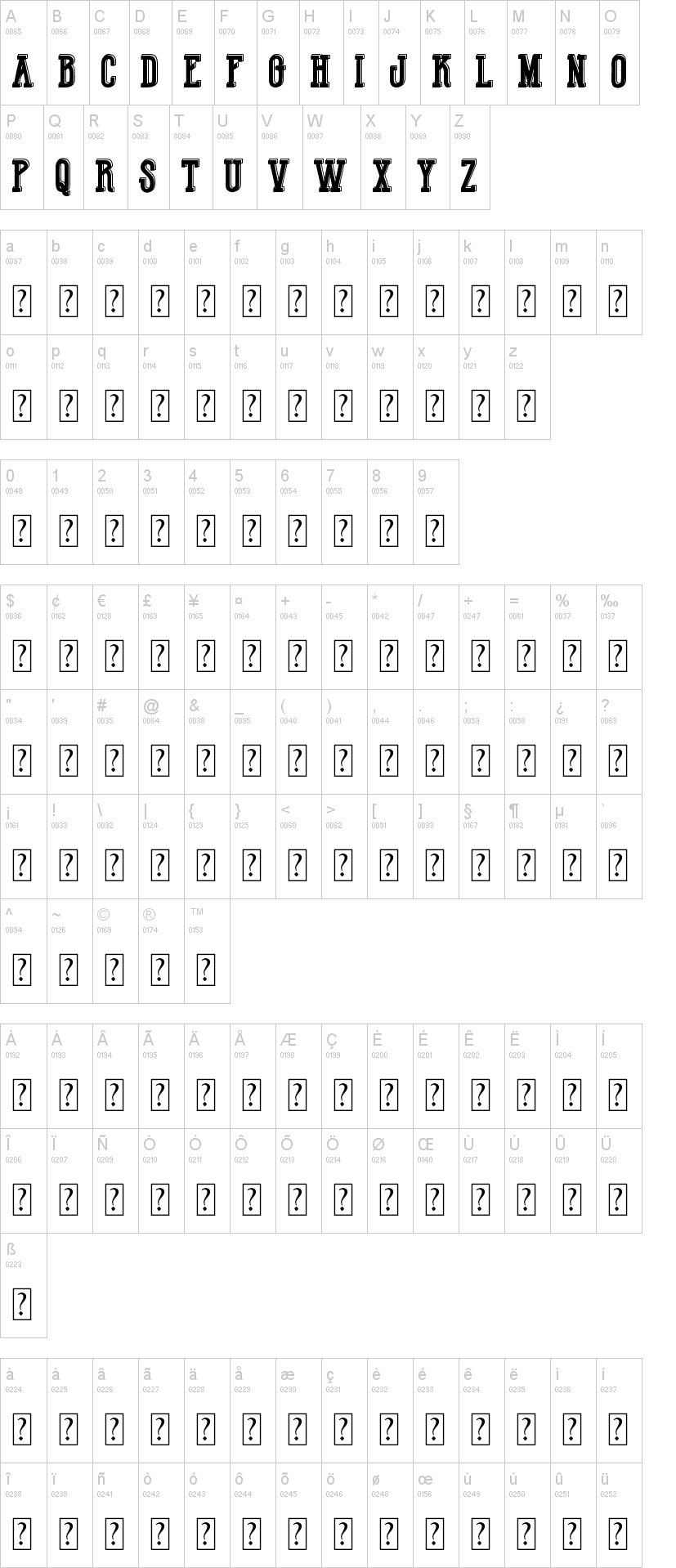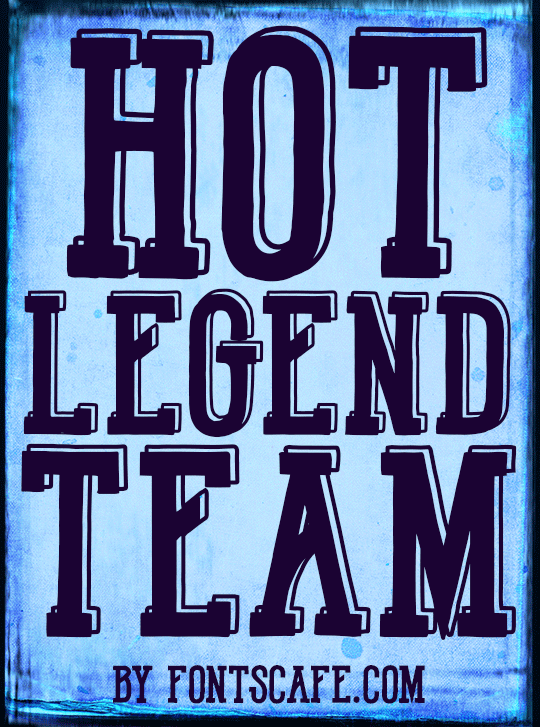
Note of the authorA legend, someone who made his/her way on a specific field. A bold, strong identity with character that with dedication and stamina reached the top. These are the features showed with this College style font. To see the whole set of characters check out this page https://fontscafe.com/font/hot-legend-team-font.